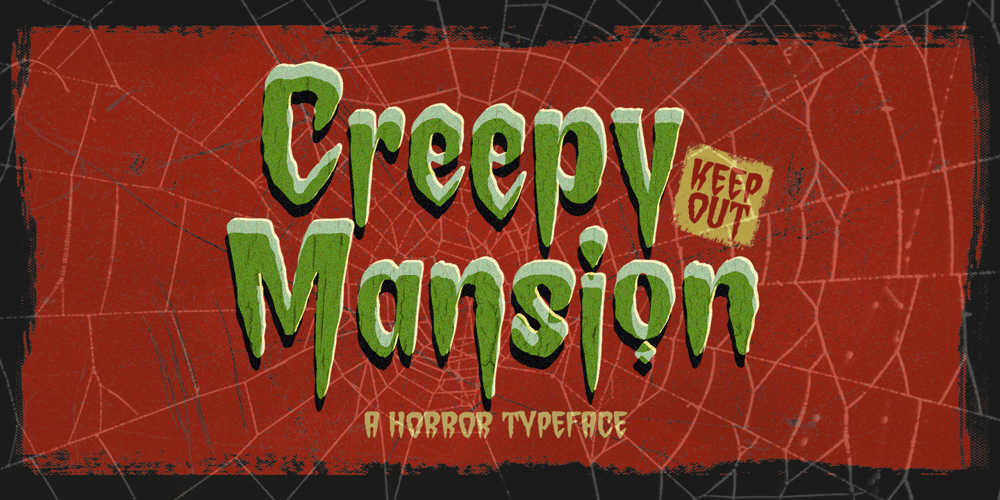
Creepy Mansion Font Family was designed by Hendry Juanda and published by Letterhend. Creepy Mansion contains 1 styles and family package options. Embrace the macabre with our latest font creation, Creepy Mansion – a hauntingly mesmerizing horror display font that beckons to the shadows. Prepare to embark on a spine-tingling journey into the darkest realms of design, where fear and fascination intertwine.Features : Uppercase & lowercase Numbers and punctuation Alternates & Ligatures Multilingual Support PUA encoded